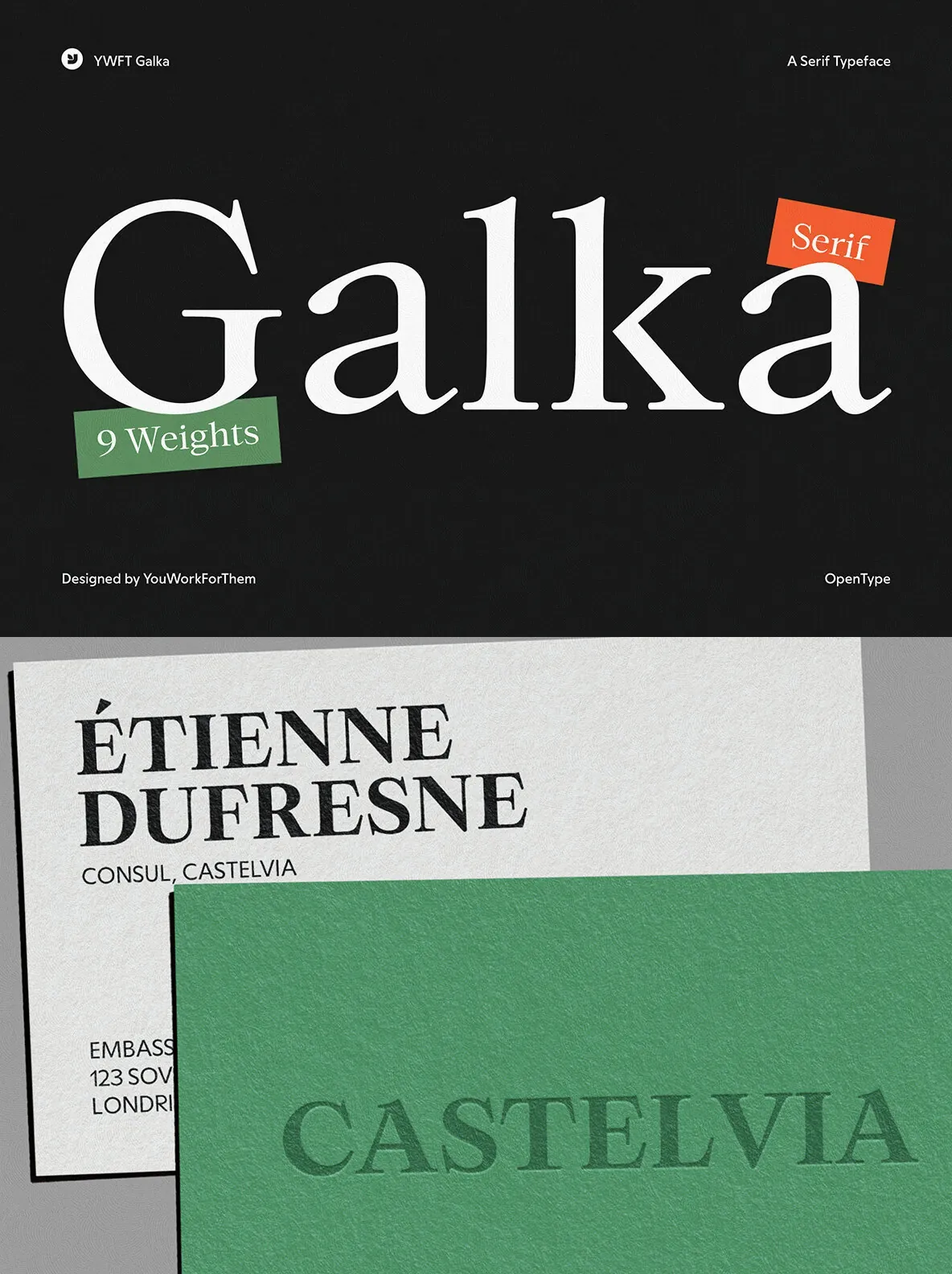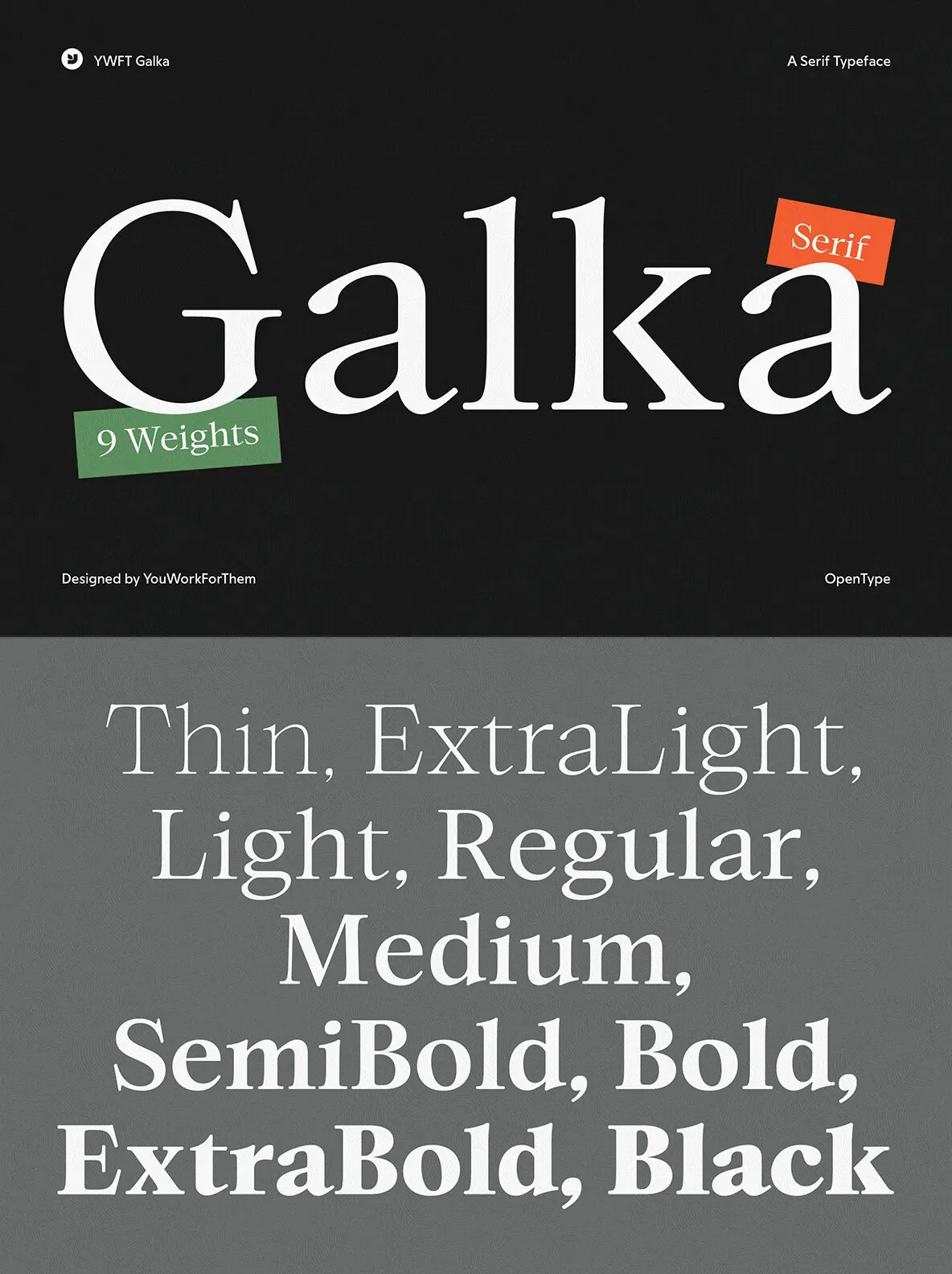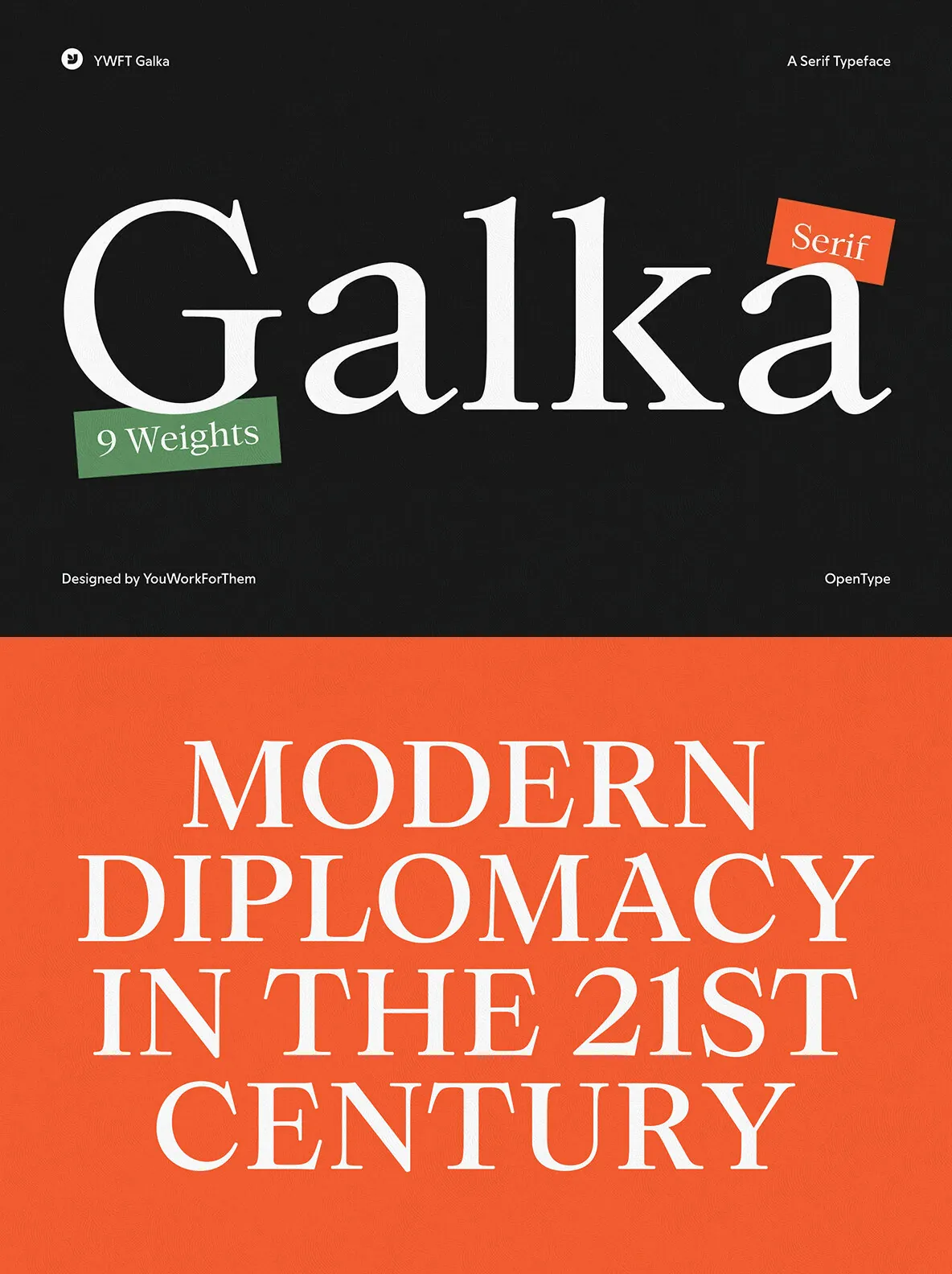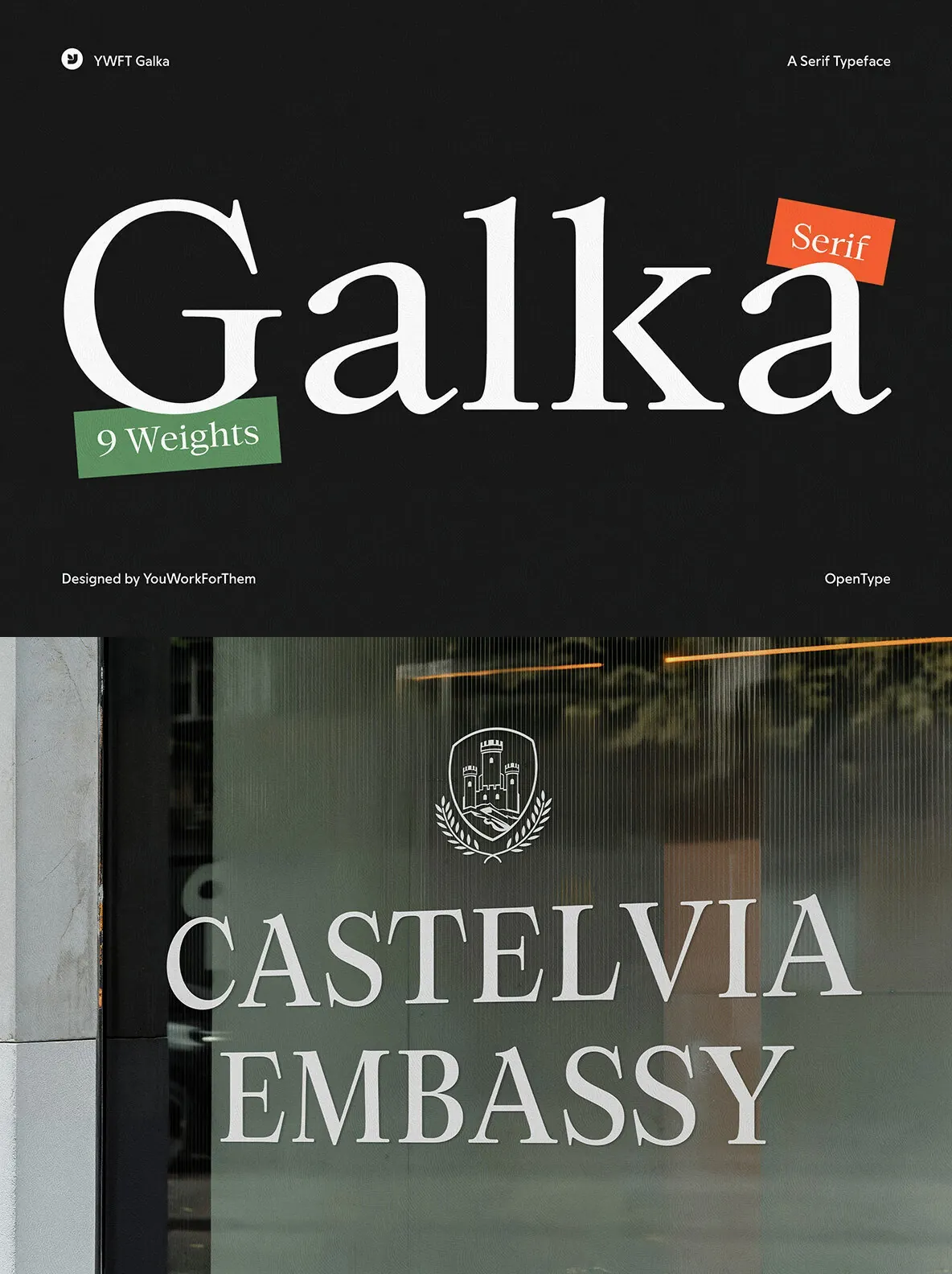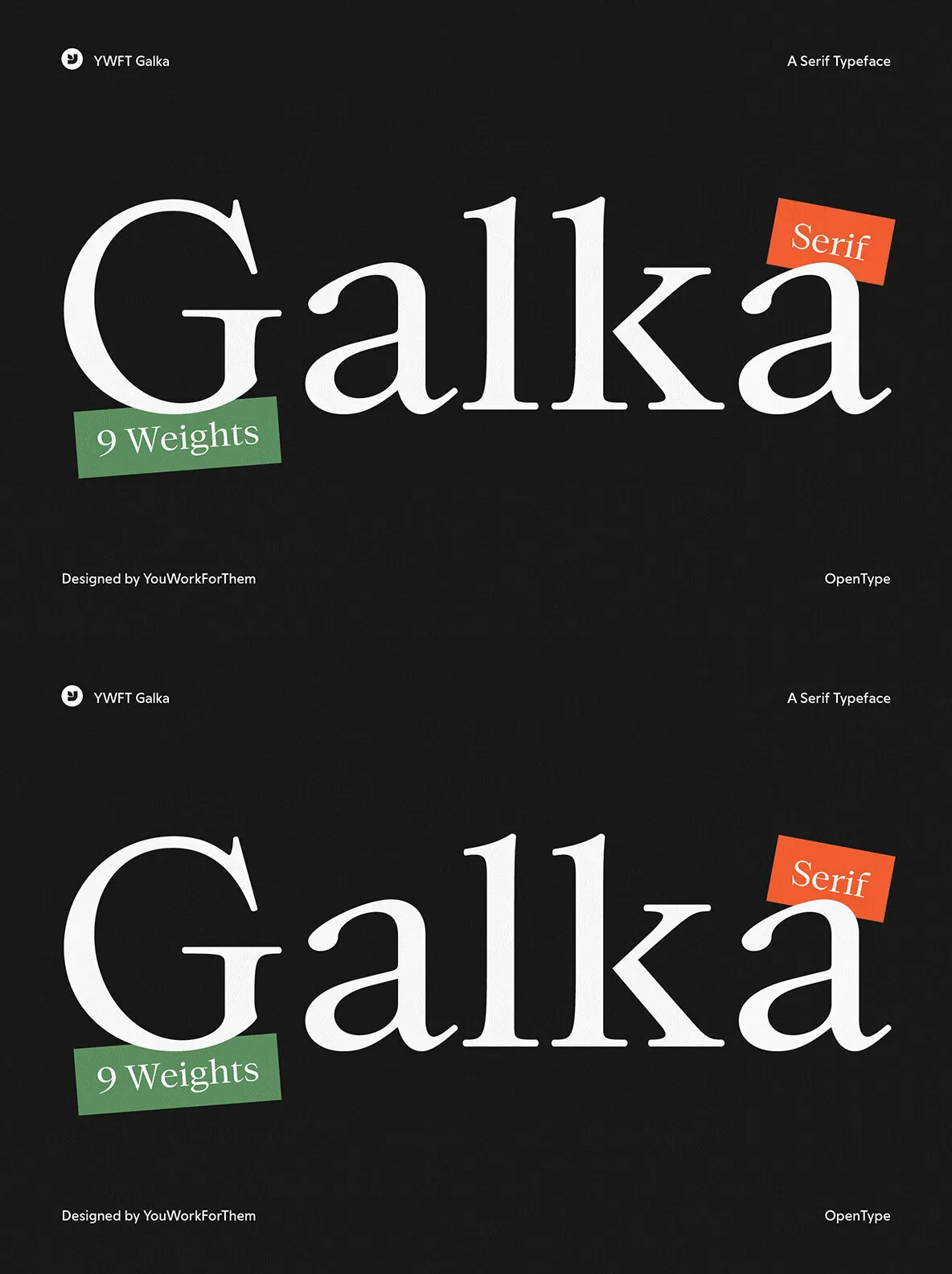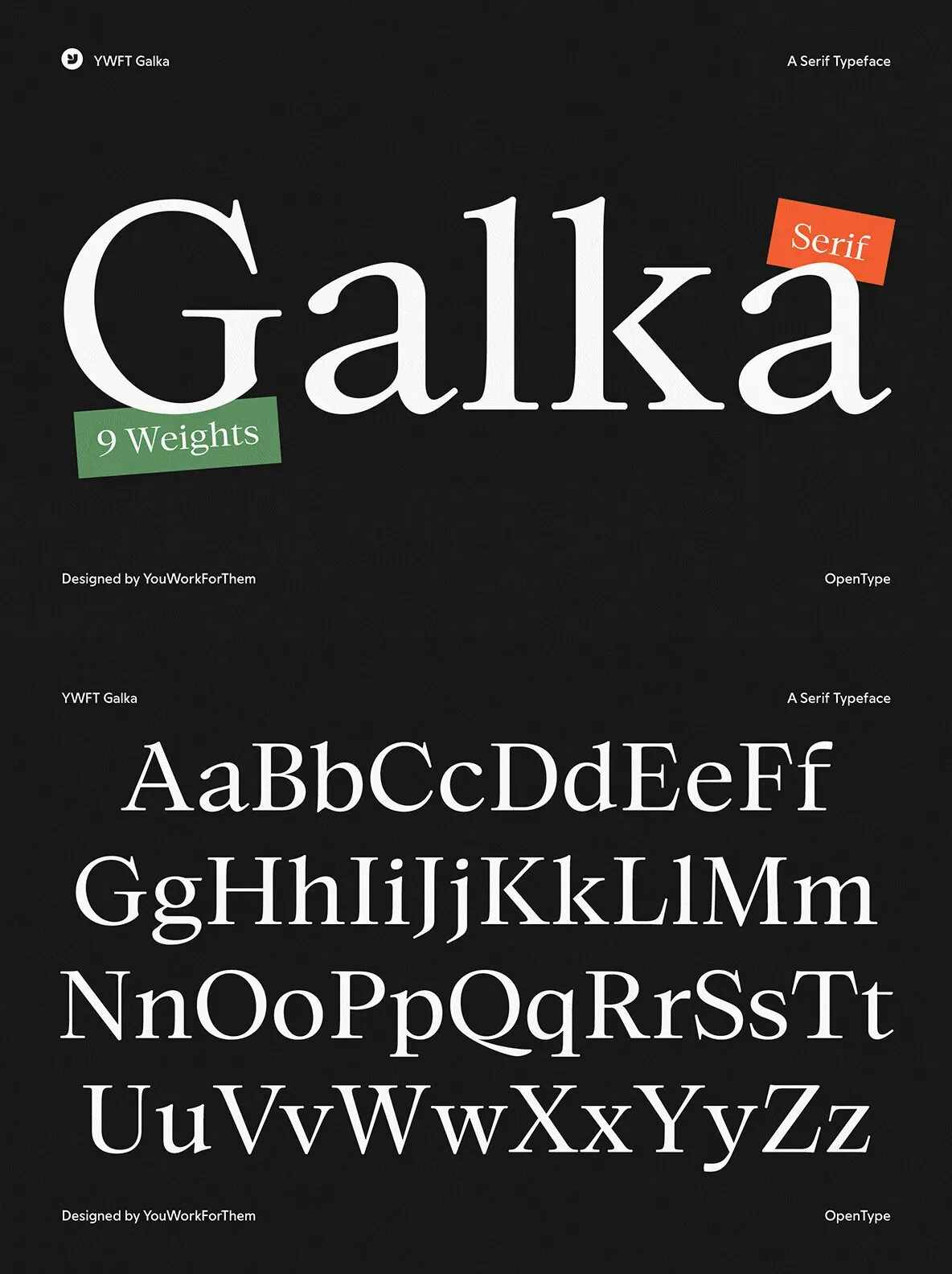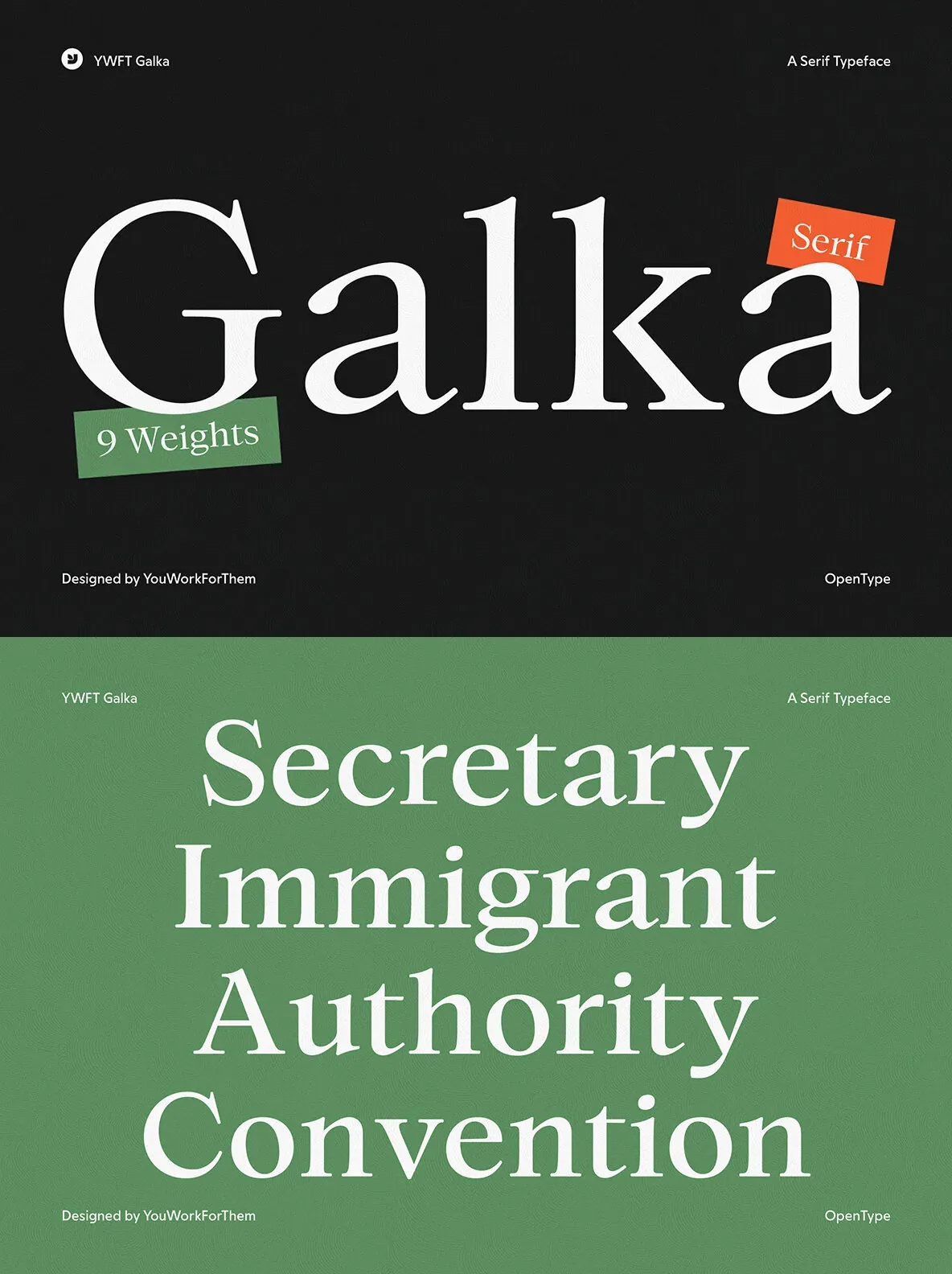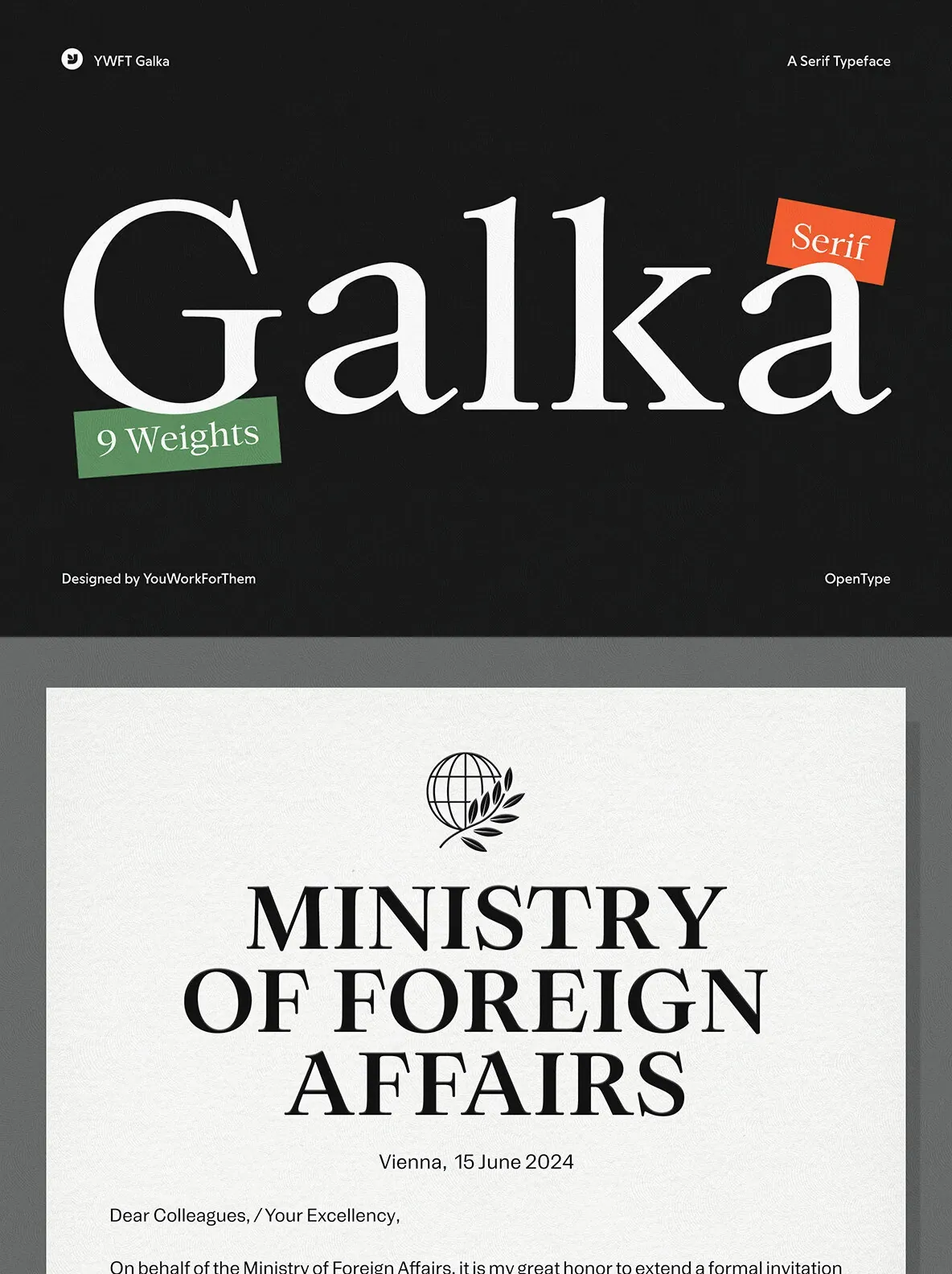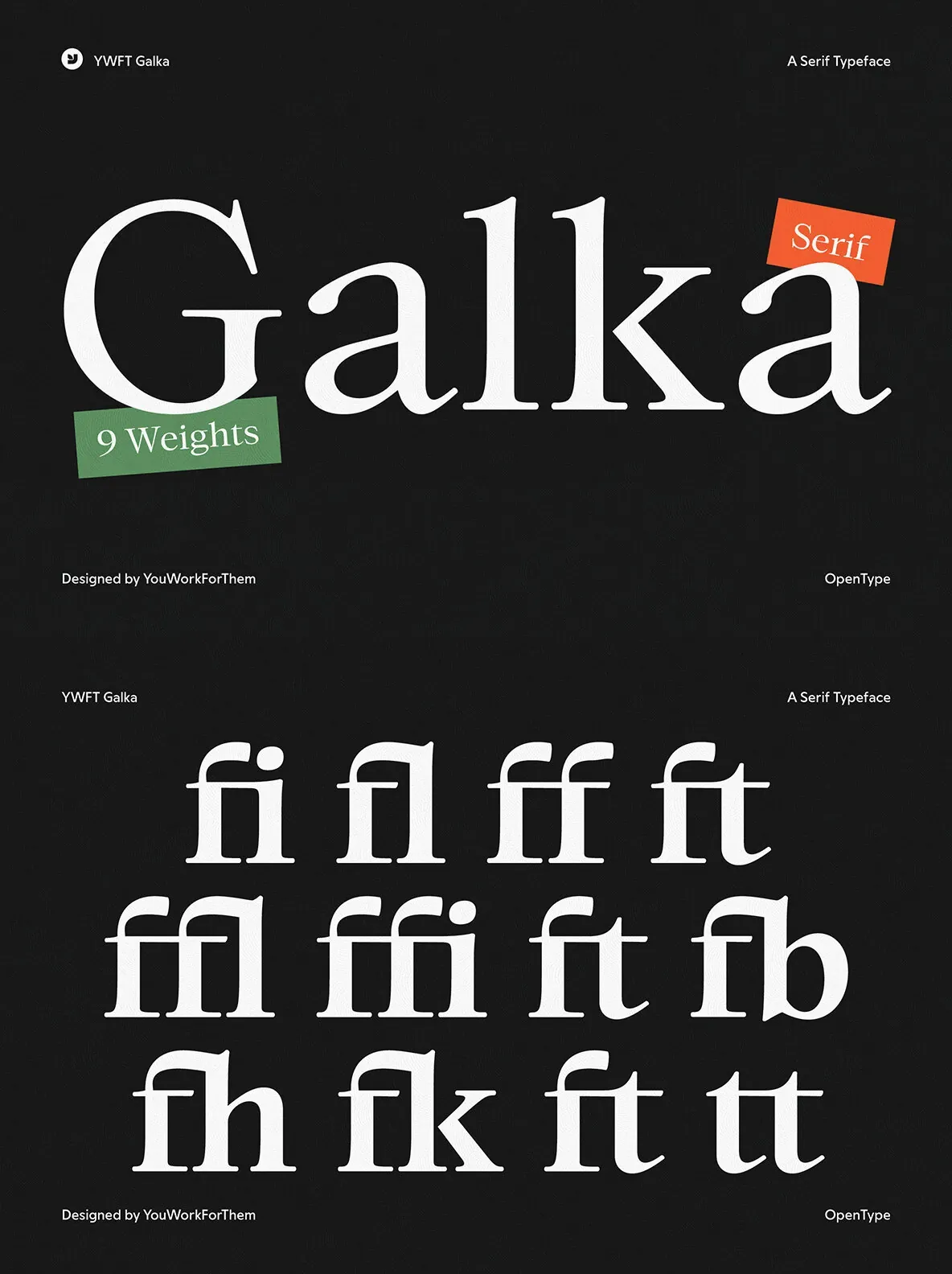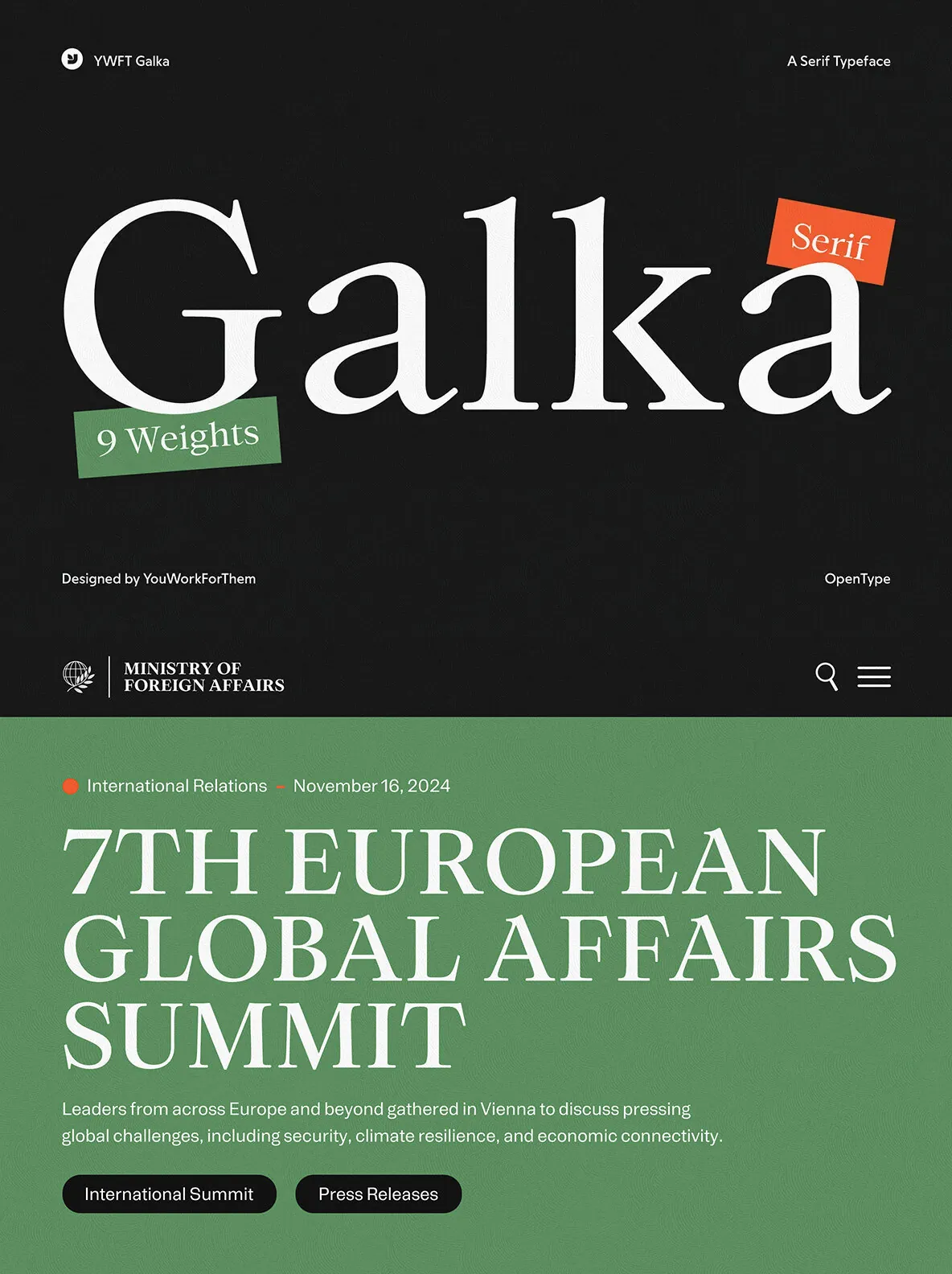
YWFT Galka Font: A Modern Serif for Sophisticated Design
YWFT Galka is a refined serif typeface designed for designers who appreciate both timeless elegance and contemporary versatility. With a full range of nine weights—spanning from thin to black—it offers a complete typographic solution for branding, editorial, and digital projects.
Each weight in the YWFT Galka family includes over 500 meticulously crafted glyphs, ensuring seamless typesetting across a wide range of languages and applications. Whether you’re designing high-end packaging, editorial layouts, or luxury branding, this typeface delivers striking contrast and balance.
Advanced OpenType Features
Designed with professional-grade typography in mind, YWFT Galka includes a robust set of OpenType features:
Stylistic Alternates & Ligatures
– Refined discretionary ligatures for effortless sophistication.
Numerical Precision
– Fractions, denominators, numerators, ordinals, and scientific inferiors.
Case-Sensitive Forms
– Optimized letterforms for uppercase typesetting.
Subscript & Superscript
– Essential for technical and editorial use.
Timeless Meets Contemporary
YWFT Galka embodies the best of transitional serif aesthetics—its high contrast and proportional letterforms create a striking presence in both digital and print formats. It’s an ideal choice for editorial layouts, formal invitations, high-end branding, and luxury packaging.